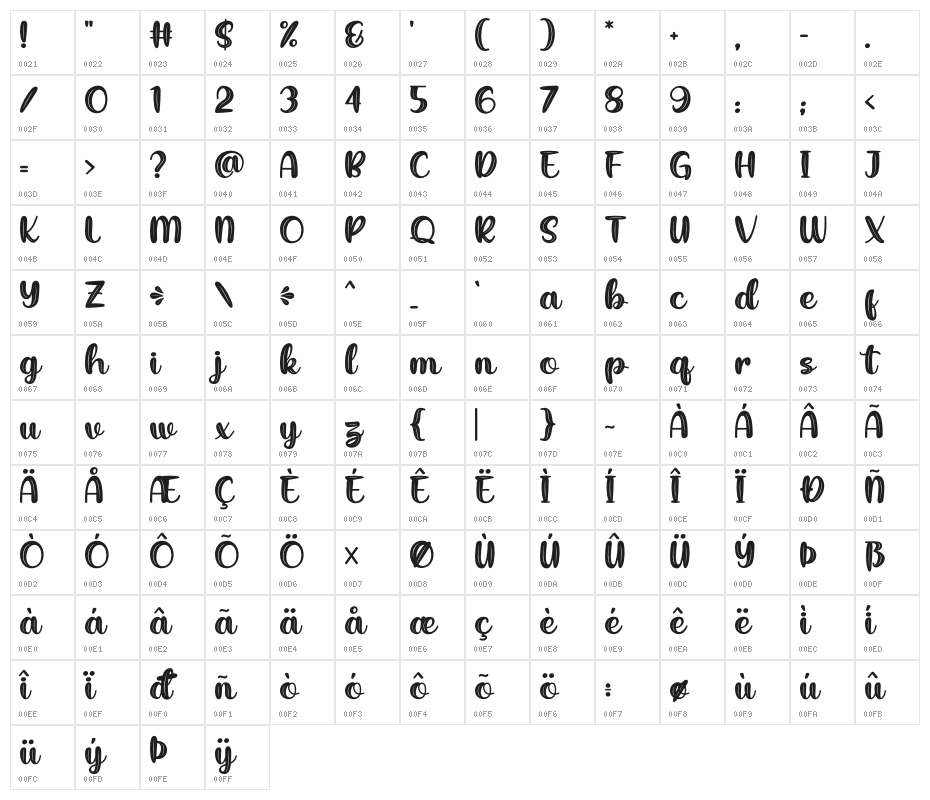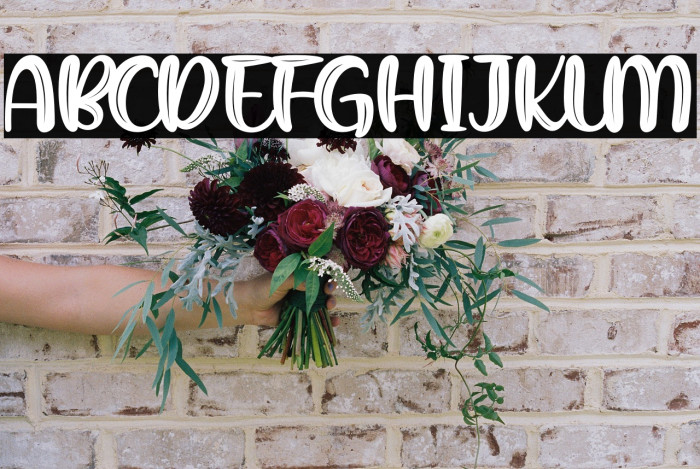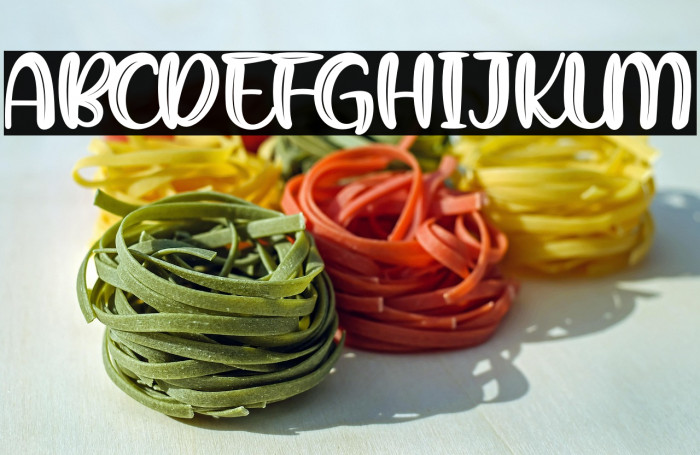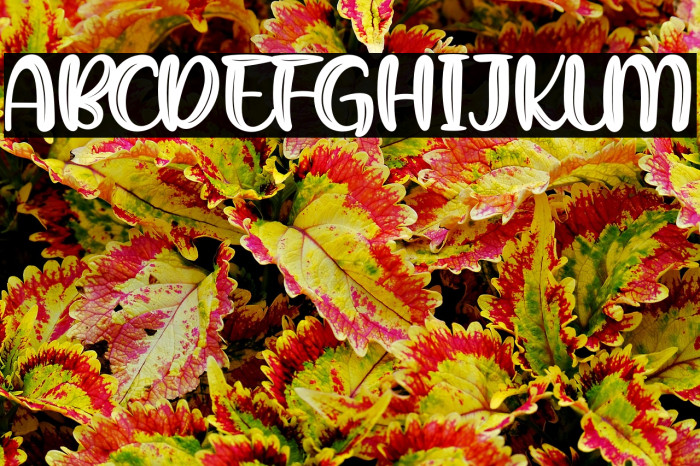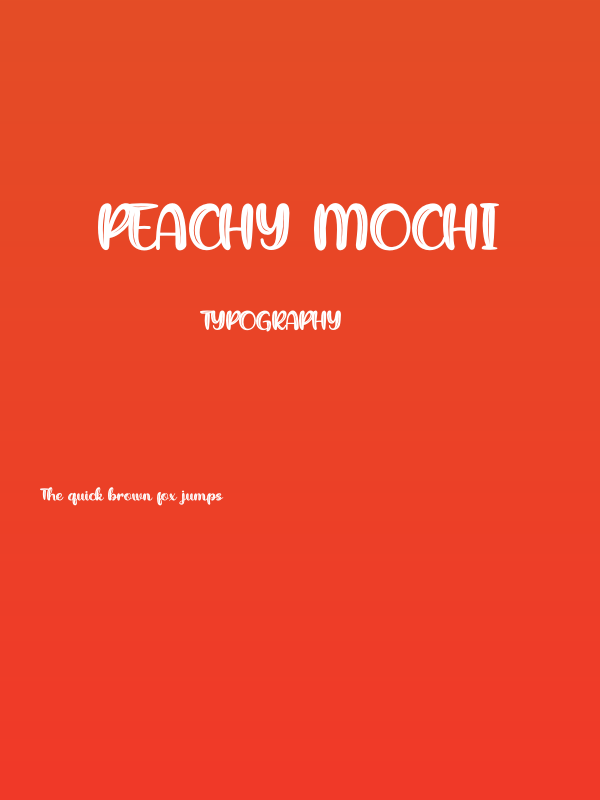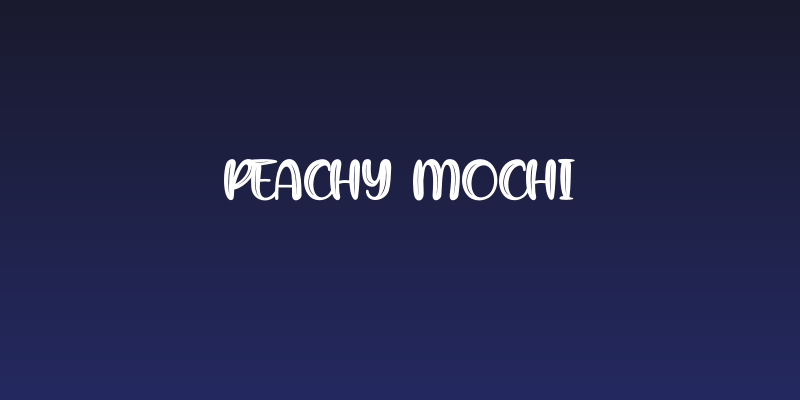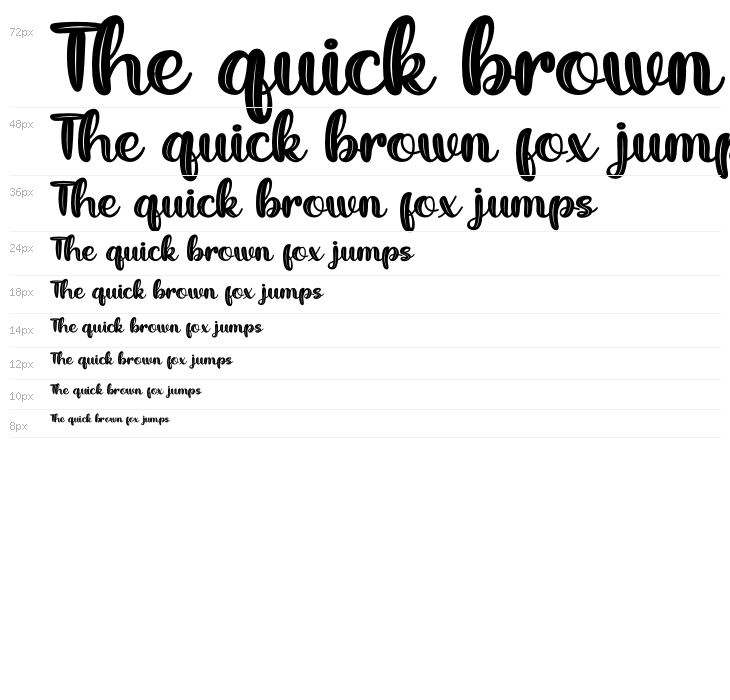
Peachy Mochi Font
Peachy Mochi Description
This playful and energetic font features a bold, rounded script style that exudes a sense of fun and creativity. The letters are interconnected with smooth, flowing curves, giving it a handwritten appearance. The uppercase letters maintain a consistent height, while the lowercase letters have a slightly exaggerated loop, adding to the whimsical feel. Numbers and special characters are designed with the same boldness and fluidity, ensuring a cohesive look across all text. The font's thick strokes and rounded edges make it highly legible, even at smaller sizes, while its unique style ensures it stands out in any design.
| Overall Style | Playful, Creative |
| Proposed Projects | Ideal for branding projects, playful invitations, children's books, and creative social media graphics. |